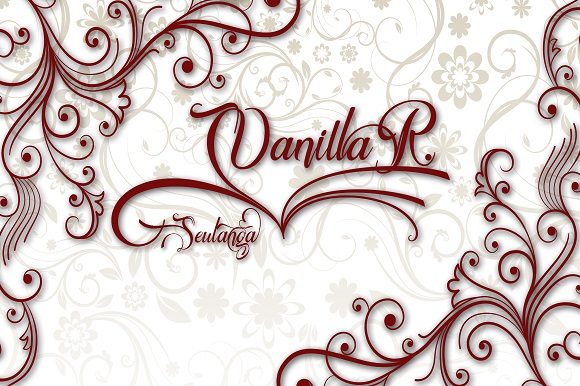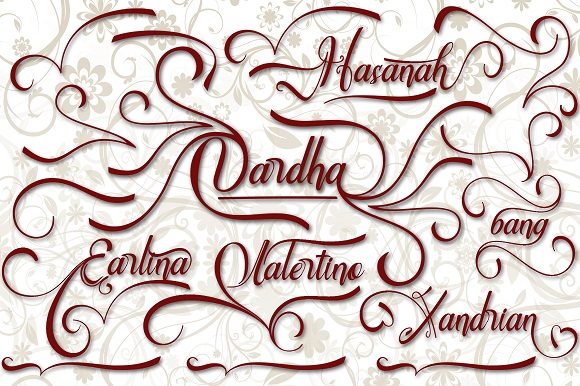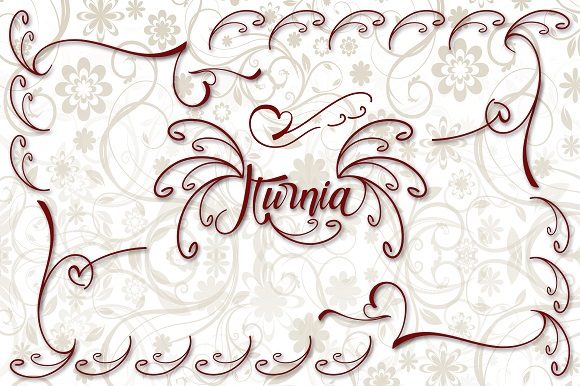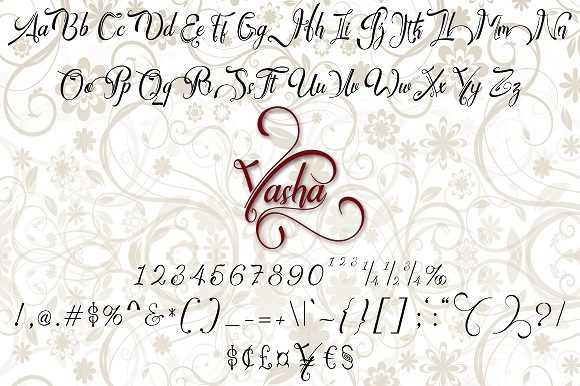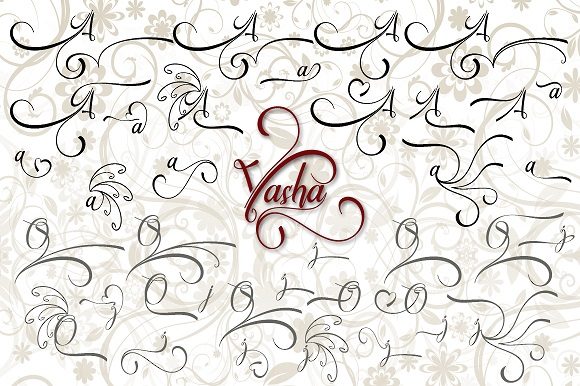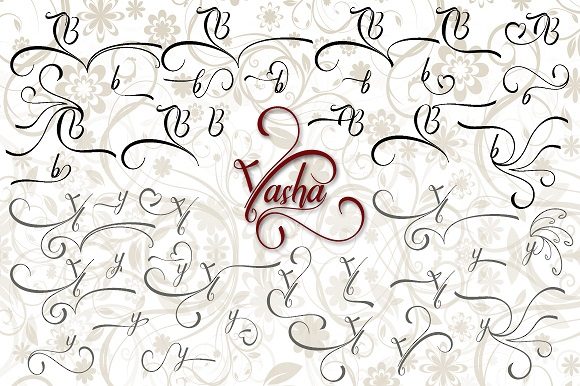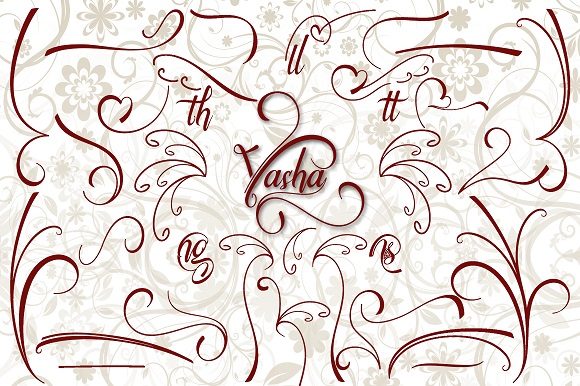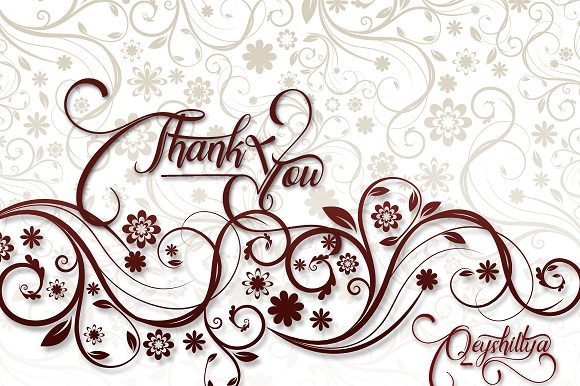
HomeScript FontsUnzillatur Font Script Fonts Unzillatur Font FacebookXPinterestWhatsApp Unzillatur Font Poster 2 Unzillatur Font Poster 3 Unzillatur Font Poster 4 Unzillatur Font Poster 5 Unzillatur Font Poster 6 Unzillatur Font Poster 7 Unzillatur Font Poster 8 Unzillatur Font Poster 9 About Unzillatur Font Unzillatur is a fresh and modern script with playful swashes. Get inspired by its unique charm! DOWNLOAD NOW People also explored Mogata Font Babydance Font Mister Romel Font Serum Essence Golden with Dropper in Bottle Scarlett Font Yosephine Script Font Shutterland Font Chocopie Font 375 0 TagsUnzillatur Font Previous articleAshirra FontNext articleStanley Font LEAVE A REPLY Cancel reply Comment: Please enter your comment! Name:* Please enter your name here Email:* You have entered an incorrect email address! Please enter your email address here Website: Save my name, email, and website in this browser for the next time I comment. Personal Use Free Over the Top Personal Use Free Read more about this font Rafika Personal Use Free Read more about this font Sileighty Personal Use Free Read more about this font Oatmeal Personal Use Free Read more about this font BLOG Exploring Font Trends Shaping Communication in the Digital Era Fonts, like all design elements, are subject to trends. They play a crucial role in communicating a brand's personality,... How to Install and Use Fonts on Windows, macOS, and Web Projects Best Fonts for YouTube Videos: Make Your Thumbnails Stand Out Free vs Paid Fonts: Why Investing in Premium Fonts Is Worth It